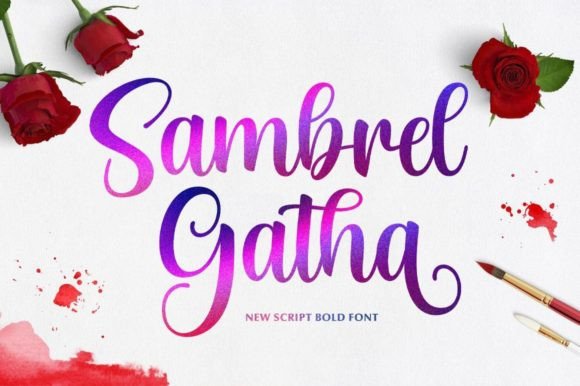
Behold, Sambrel Gatha — a script font of unparalleled charm, ushering in a new era of creative expression. Its strokes, reminiscent of elegant calligraphy, dance and flow with a contemporary flair, capturing the essence of timeless beauty. Step into a world where classicism meets modernity, where your designs take center stage and captivate all who lay their eyes upon them.
With Sambrel Gatha, you hold the key to unlocking a treasure trove of creativity, a font meticulously crafted to elevate your projects to breathtaking new heights. Its lines, neither too delicate nor overpowering, harmonize perfectly, enhancing every letterform with an exquisite balance that draws the eye and leaves a lasting impression.
Sambrel Gatha's versatility knows no bounds. Whether you're a seasoned designer, a creative entrepreneur, or simply a lover of beautiful typography, this font will effortlessly blend into your vision, bringing your words to life with an air of sophistication and charm. Let your imagination soar, explore the countless possibilities, and create designs that resonate with your unique style.
Using Sambrel Gatha is as effortless as its beauty. Its PUA encoding grants you the power to effortlessly access all its glyphs and swashes, opening up a world of creative possibilities. Unleash your inner artist and let your designs bloom with Sambrel Gatha's enchanting touch. Elevate your projects, captivate your audience, and leave an enduring legacy of creativity.